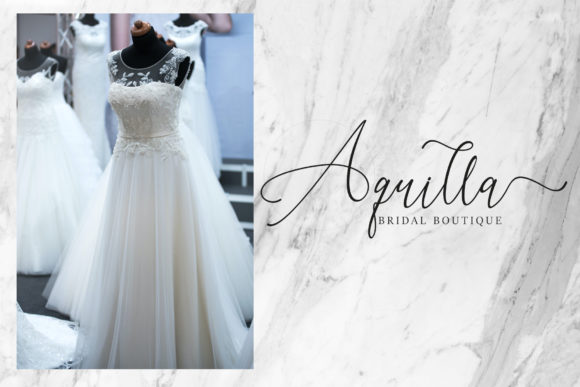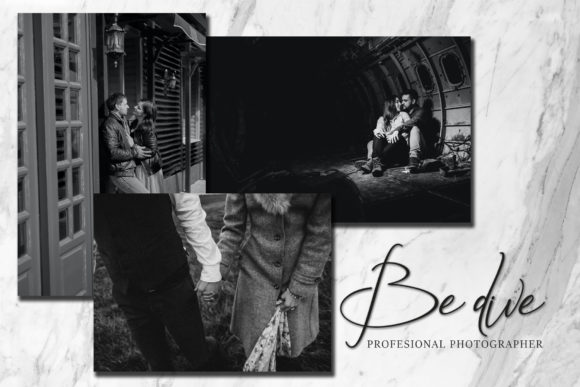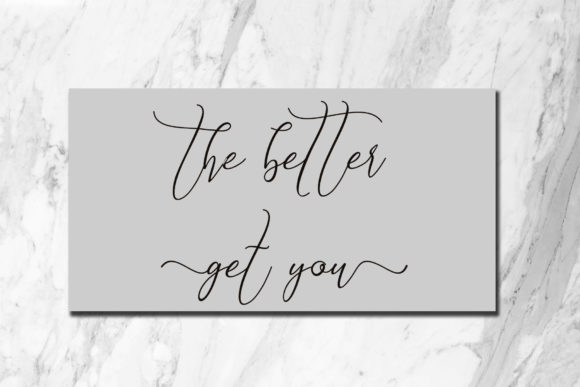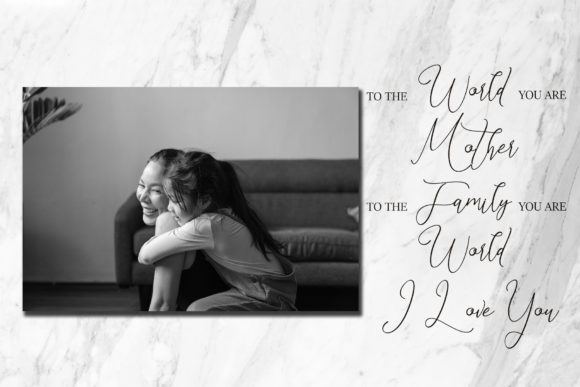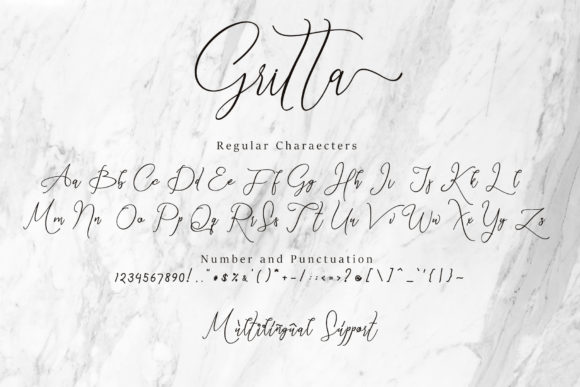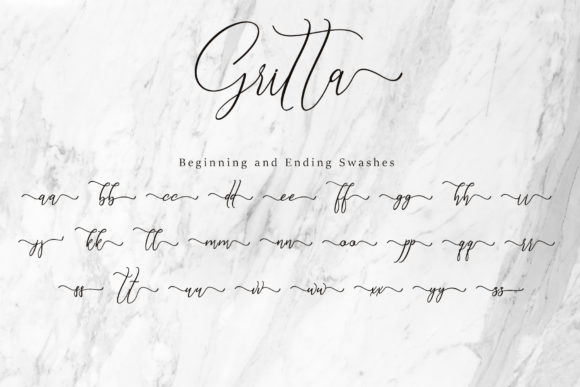
Introduction to Gritta Font
Have you ever found yourself stuck on a creative project, desperately searching for that perfect design element to bring it all together? I know I have. It’s like trying to find the missing piece of a puzzle – you know it’s out there, but it’s hard to put your finger on it. For designers, this can be especially frustrating, especially when working on a project that requires a touch of luxury and elegance.
That’s where the Gritta Font comes in – a romantic and sweet calligraphy typeface that’s sure to add a touch of sophistication to any design project. With its unique, flowing characters that dance along the baseline, this font is the perfect addition to any designer’s toolkit. Whether you’re working on a high-end branding project or a beautiful wedding invitation, the Gritta Font is sure to elevate your design to the next level.
Key Features of Gritta Font
- High-quality, professional font ideal for creative projects and design resources
- Unique, modern design with a clean and minimalist aesthetic
- Perfect for use in logos, branding, and other design elements
Honest Review: Gritta Font
As a designer, I’m always on the lookout for high-quality design resources to enhance my creative projects. Recently, I stumbled upon the Gritta Font, and I must say, it’s been a game-changer. ✨ The font is clean, modern, and incredibly versatile, making it perfect for a wide range of design applications.
One of the standout features of the Gritta Font is its transparent background, which allows for seamless integration with any design element. I’ve used it for everything from logos to web graphics, and it always looks sharp and professional.
Here are some of the key benefits of the Gritta Font:
- Transparent background for easy integration with other design elements
- Wide range of applications, from logos to web graphics
Overall, I’m thoroughly impressed with the Gritta Font. It’s a high-quality design resource that’s perfect for designers looking to elevate their creative projects. With its clean design, transparent background, and wide range of applications, it’s a must-have for any design library.
The Gritta Font is a versatile design resource suitable for various creative projects, including logos, branding materials, and marketing campaigns. Its high-quality design and transparent background make it an ideal choice for creating eye-catching and professional-looking designs.
Tips for Getting the Most Out of Gritta Font
To get the most out of Gritta Font, consider using it in combination with other design resources, such as graphics and images. Experiment with different font sizes, colors, and styles to create unique and engaging designs. You can also use the font’s transparent background to create a sense of depth and dimension in your designs.